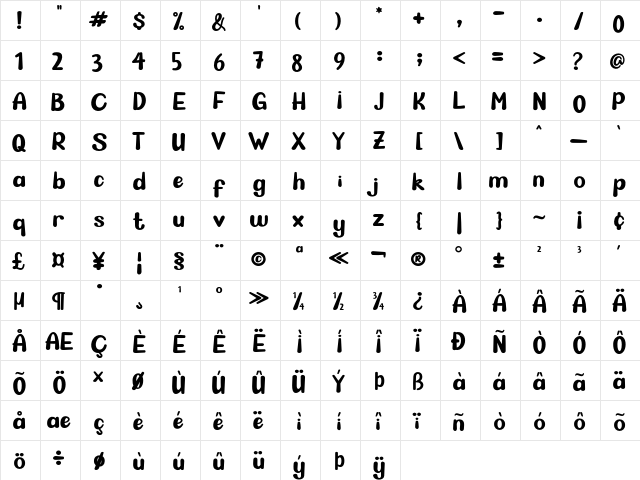
CUTE FROG Regular
| Foundry | AFREDO.FK |
| Designer | ZULFIKAR ALI |
Design Context for CUTE FROG Typeface
CUTE FROG is a composed and adaptable typeface that performs quietly and consistently across a wide range of design contexts.